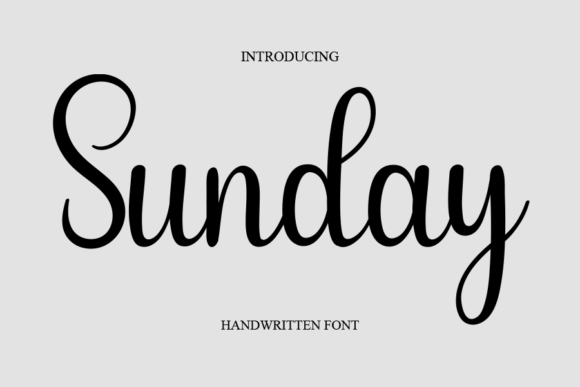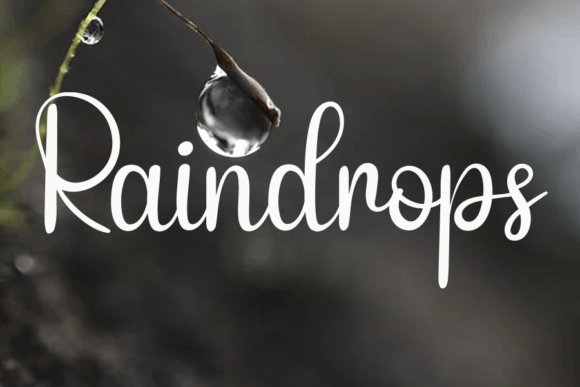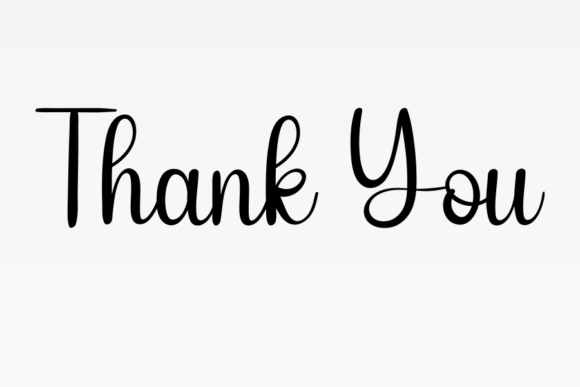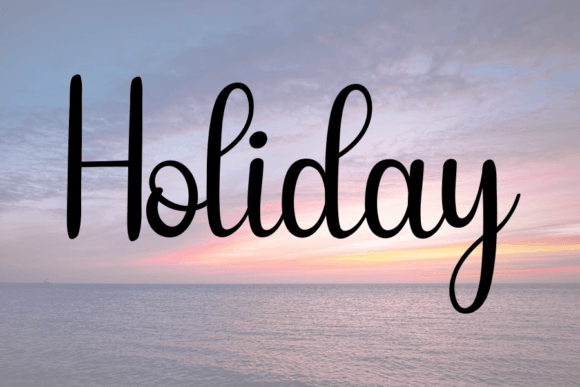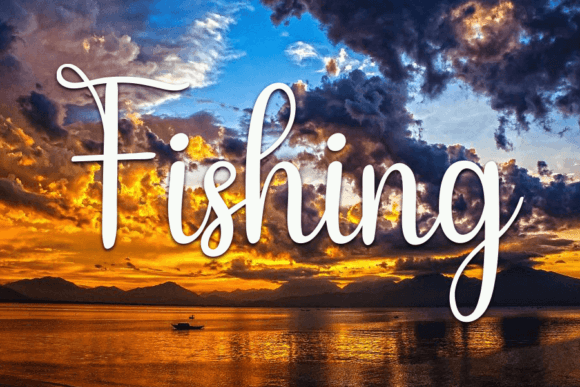
Sunday Font
About Sunday Font
Sunday is a charming and versatile script font that effortlessly adds a touch of elegance to your love letters, wedding invitations, or any design project you adore. Its simplicity and adaptability make it the perfect choice for a wide range of creative endeavors.
Imagine infusing your heartfelt love letters with the graceful curves and playful strokes of Sunday. As you pour your emotions onto paper, this font delicately enhances the romantic essence of your words, making your messages even more enchanting. The way Sunday effortlessly dances across the page captures the essence of your affection, leaving a lasting impression on the recipient.
For your wedding invitations, Sunday becomes the epitome of sophistication. Its graceful lines and stylish flourishes create a sense of timeless beauty, setting the perfect tone for your special day. Whether you’re planning an intimate celebration or a grand affair, Sunday lends an air of refined charm to your invitations, leaving your guests eagerly anticipating the joyous occasion.
When it comes to your favorite design ideas, Sunday proves to be a delightful companion. Its versatility knows no bounds, allowing you to explore endless creative possibilities. Whether you’re crafting personalized greeting cards, designing stunning posters, or creating captivating social media graphics, Sunday adds a touch of whimsy and warmth to every project.
As you immerse yourself in the creative process, Sunday’s cute and endearing appearance will inspire you to push the boundaries of your imagination. Its playful yet elegant demeanor transforms ordinary designs into extraordinary works of art. With Sunday, your creations will radiate charm and captivate anyone who lays eyes on them.
Incorporating Sunday into your design projects is not just about choosing a font; it’s about elevating your creations to new heights. The font’s seamless integration into your love letters, wedding invitations, and favorite design ideas will leave you astounded by the outcome. Each stroke of Sunday’s letterforms tells a story, adding depth and character to your words and designs.
So, go ahead and embrace the enchanting allure of Sunday. Let its graceful curves and adorable charm weave their magic into your love letters, wedding invitations, and creative endeavors. Prepare to be amazed as Sunday transforms your heartfelt expressions and design visions into unforgettable masterpieces, leaving a lasting impression on everyone who experiences the beauty of this delightful font.